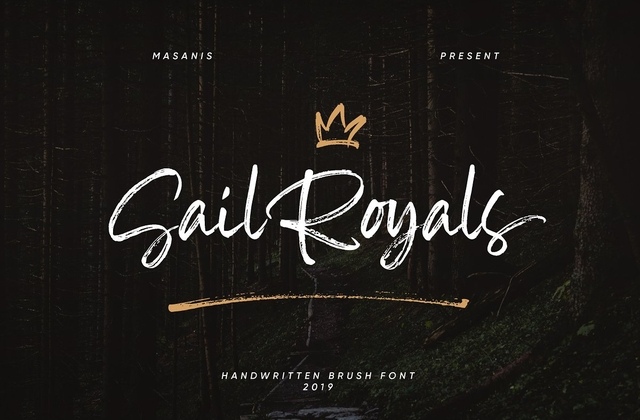
Sail Royals Font
Sail Royals Font is perfect for luxury yacht club branding, prestigious maritime events, nautical wedding invitations, exclusive sailing resort materials, high-end marina signage, and elegant coastal restaurant identity. Its distinguished character makes it ideal for royal yacht clubs, luxury cruise lines, naval academies, maritime museums, exclusive boat dealerships, and any project requiring aristocratic elegance with seafaring heritage and prestigious nautical sophistication.
This font is exciting because it embodies the grandeur and noble tradition of maritime royalty while delivering exceptional functionality for luxury communications. The majestic letterforms evoke images of royal regatta ceremonies, magnificent sailing vessels, and the prestigious world of competitive yachting, creating powerful associations with excellence, tradition, and the timeless appeal of nautical aristocracy that resonates with affluent audiences.
The Sail Royals Font family typically includes Regular, Bold, and ornamental variations with nautical flourishes, maritime-inspired decorative elements, and regal ornaments that enhance its aristocratic personality. This comprehensive collection provides designers with sophisticated tools for creating prestigious brand systems that maintain royal authenticity while offering creative flexibility for various luxury maritime applications and exclusive nautical market positioning.
Whether you're developing identity systems for luxury yacht manufacturers, creating materials for prestigious sailing competitions, or designing promotional content for exclusive coastal resorts, Sail Royals Font Free Download delivers the regal elegance and maritime prestige that connects with discerning audiences. Its noble presence ensures distinguished brand recognition across digital platforms and print materials, making it perfect for websites, mobile applications, and luxury campaigns that celebrate nautical tradition, sailing excellence, and the magnificent heritage of royal maritime culture with uncompromising sophistication.